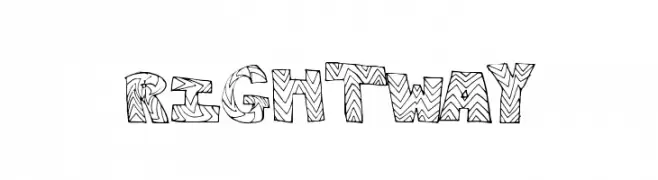
A bold, dynamic font with a distorted, motion-inspired design.
A decorative font with ribbon-like, angular characters and a bold, vintage-modern style.
A bold, distressed font with a grunge aesthetic and textured edges.
A dynamic and expressive handwritten font with fluid strokes.
A playful, casual handwritten font with irregular strokes.
A bold, textured font with a vintage halftone pattern and 3D shadow effect.
A bold, decorative font with intricate geometric patterns.
A bold, expressive handwritten font with textured strokes.
A bold, brush-style font with a dynamic, hand-drawn appearance.
A bold, textured serif font with a vintage, distressed style.